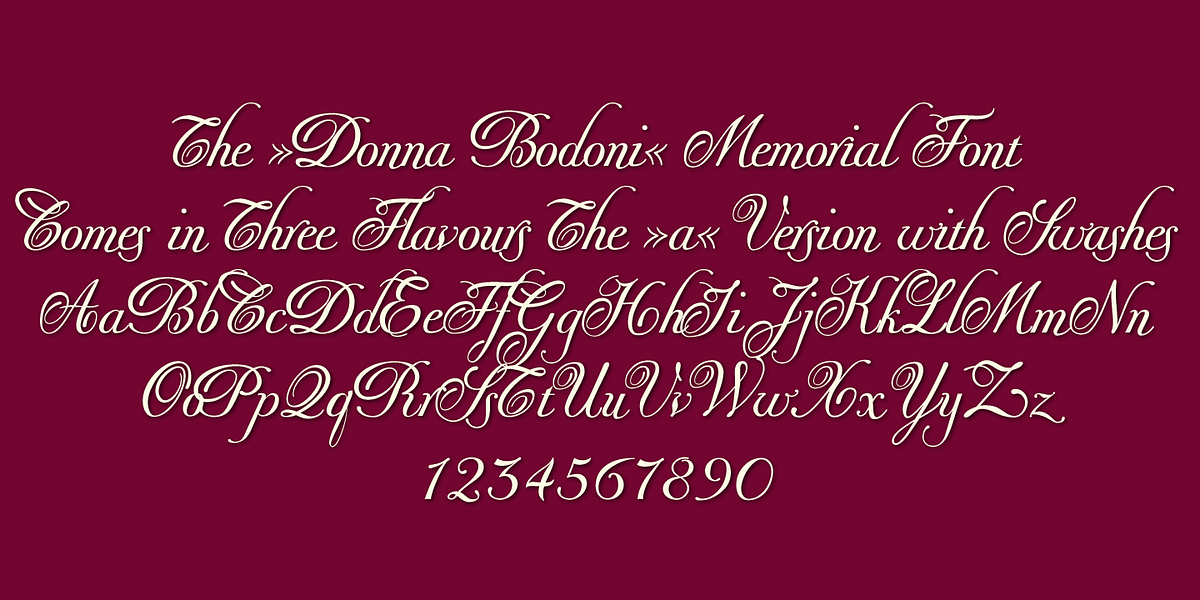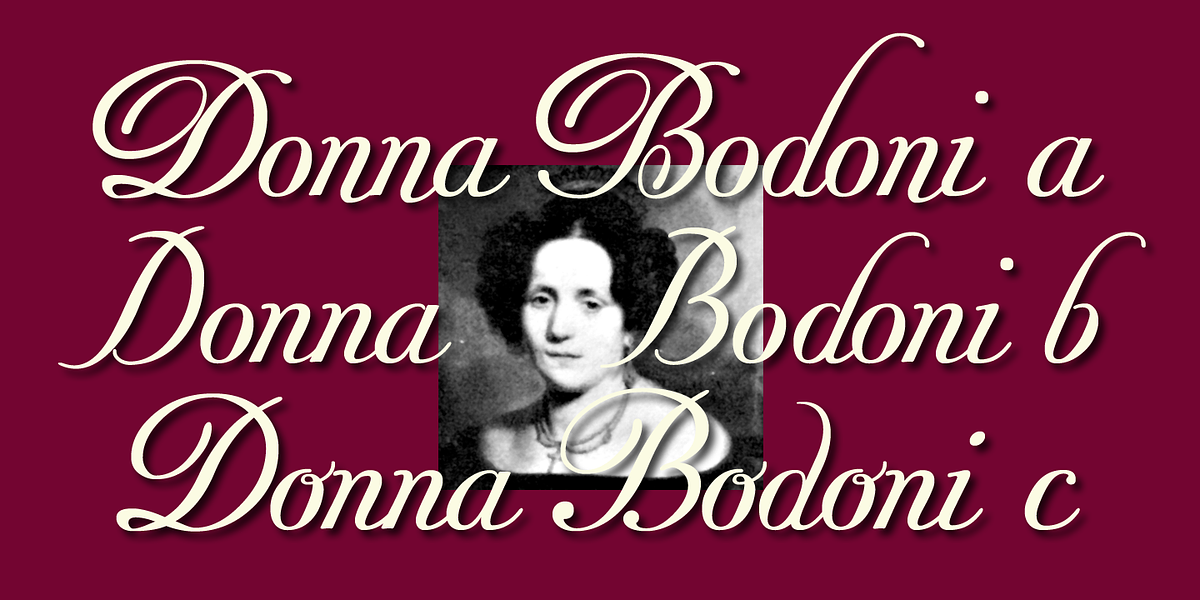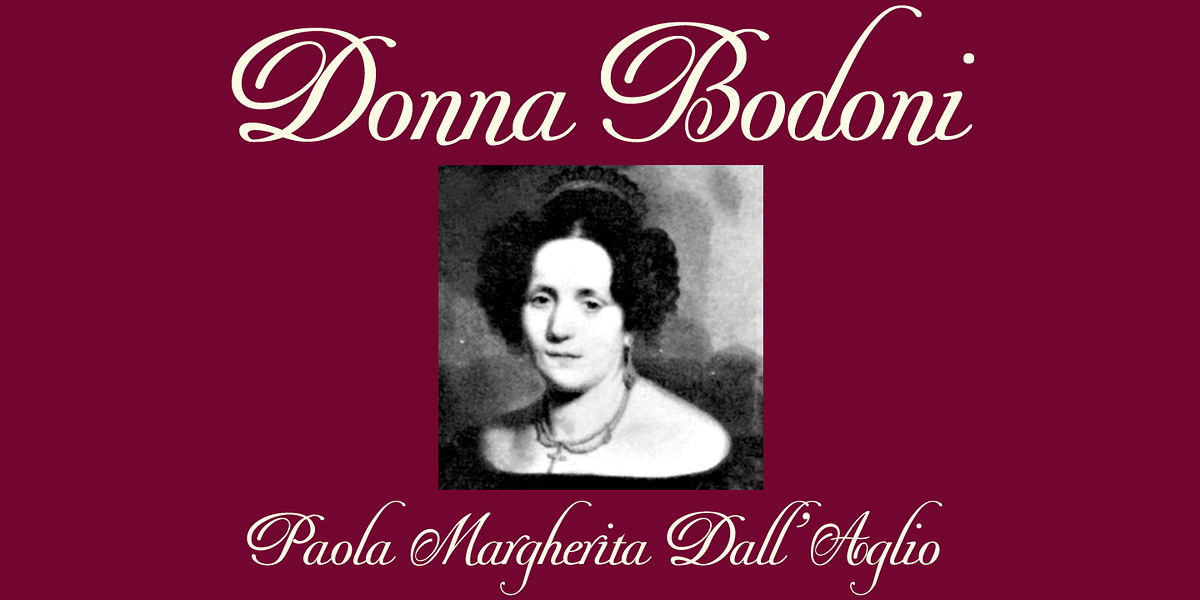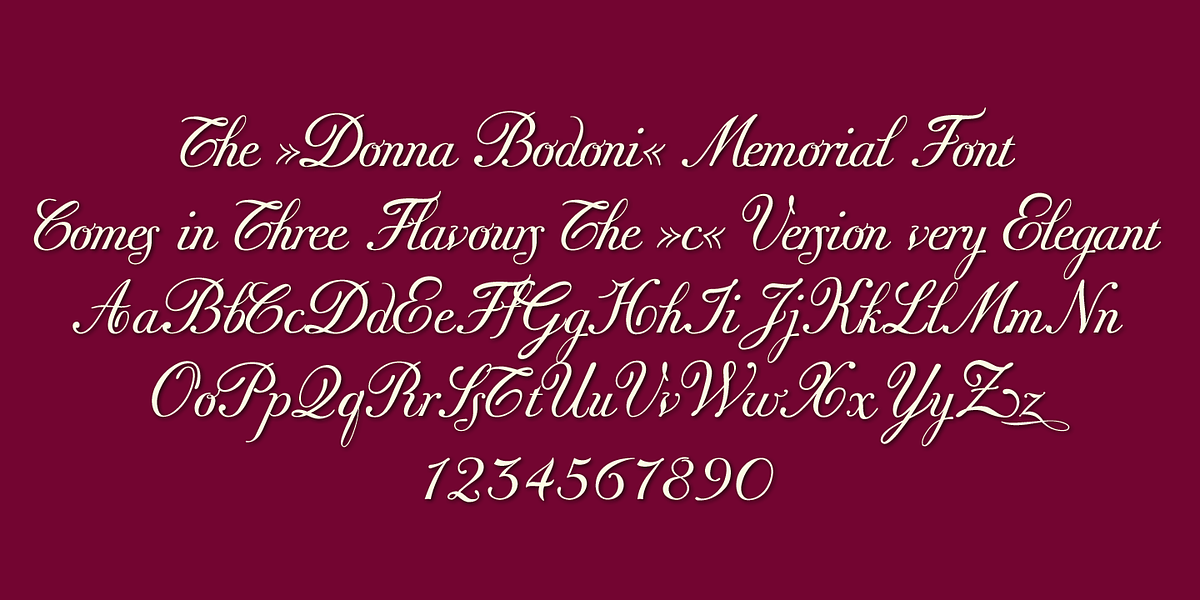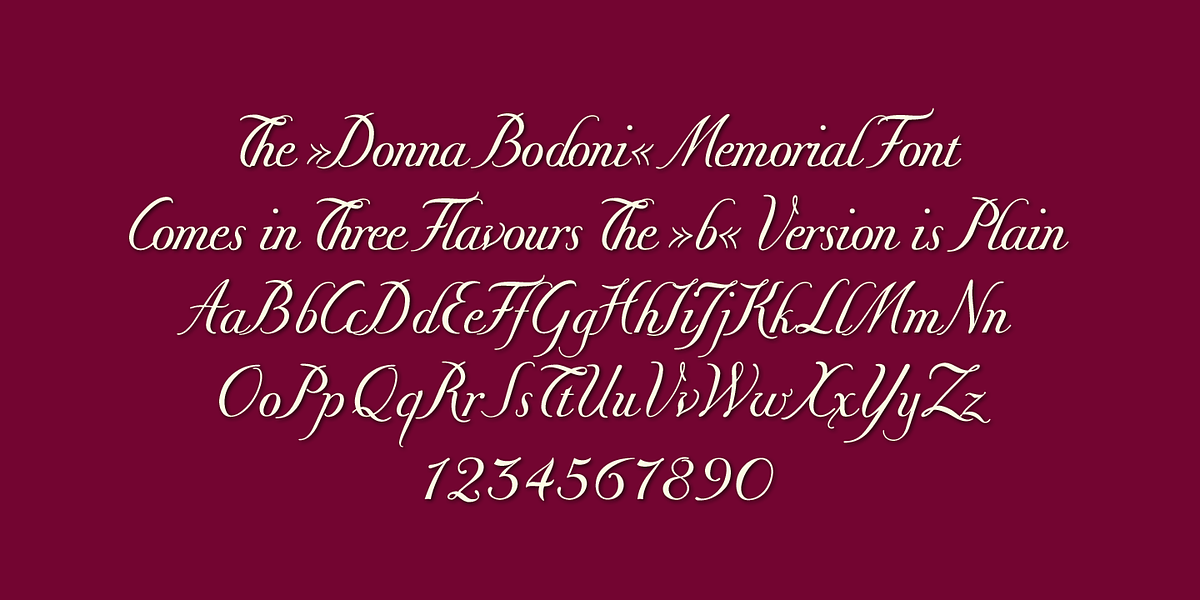
Donna Bondoni
Donna Bodoni is a formal script typeface designed by Gert Wiescher. It draws inspiration from Giambattista Bodoni's English-Initials and was created as a tribute to Bodoni's widow, Paola Margherita Dall 'Aglio. The font features elegant, curly strokes characteristic of calligraphic scripts and is well-suited for uses such as invitations, certificates, and branding.